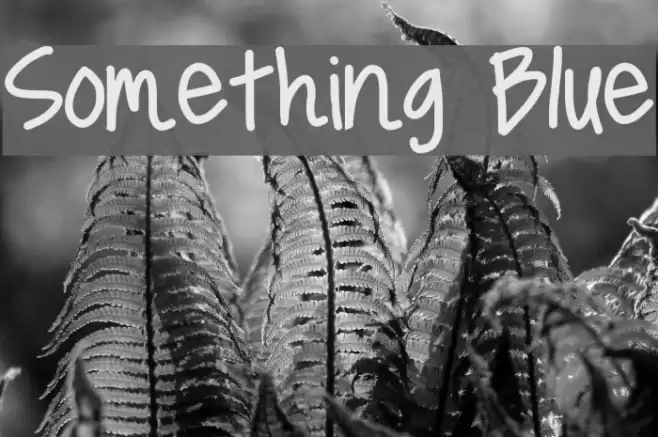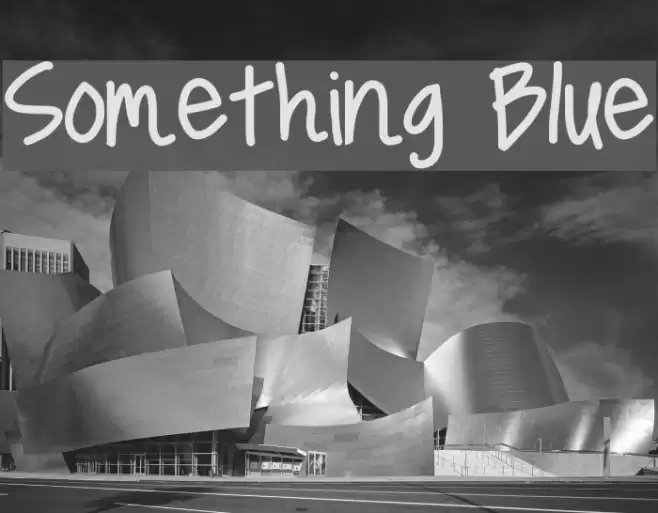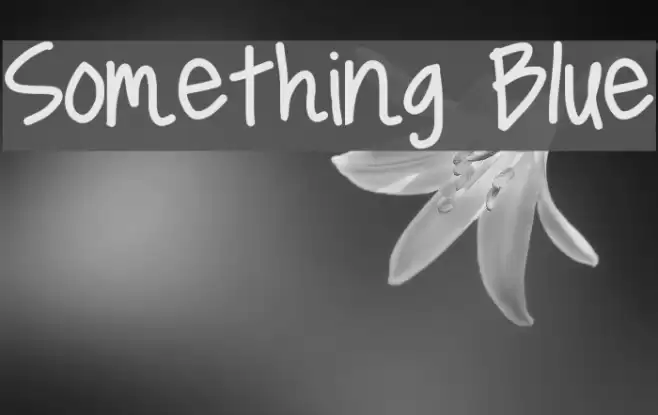
Something Blue Font
Something Blue Description
This font features a playful and casual handwritten style, characterized by its smooth, flowing lines and slightly irregular shapes. The uppercase letters are bold and prominent, while the lowercase letters maintain a consistent, rounded appearance. The numbers are clear and easy to read, matching the overall informal aesthetic. Special characters are integrated seamlessly, enhancing the font's versatility. This font exudes a friendly and approachable vibe, making it suitable for a variety of creative projects.
A playful, casual handwritten font with smooth, flowing lines from Uncategorized fonts.
- Proposed Projects: Ideal for greeting cards, invitations, children's books, and informal branding.
- Overall Style: Casual
- Use Case: Headlines, Logos, Informal Text